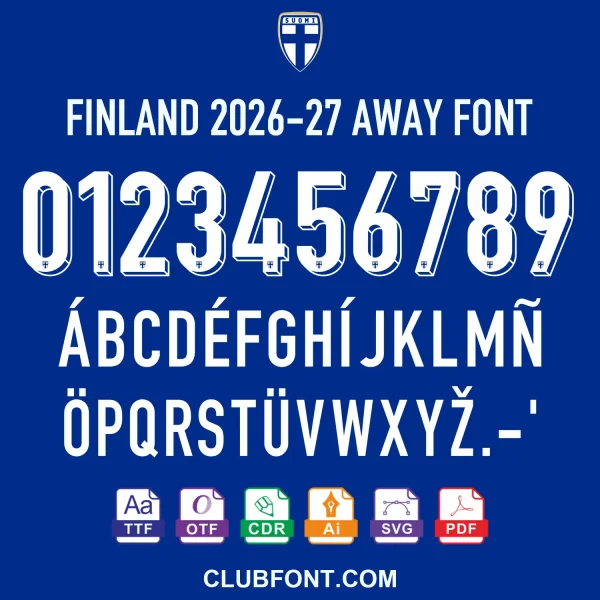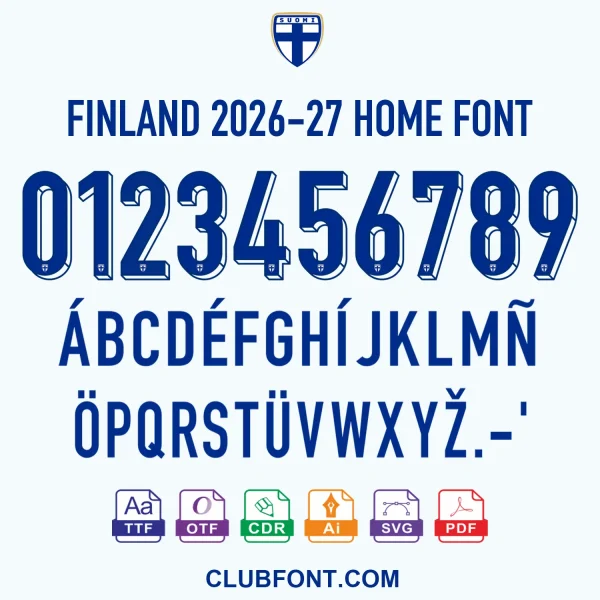
Finland 2026-27 Font – Official National Team Typography
Bring your custom jerseys to life with the definitive Finland 2026-27 font. Designed for the die-hard Huuhkajat supporter, this digital package captures the exact lettering seen on the pitch during the FIFA World Cup 2026 cycle. Engineered for both digital designers and garment decorators, this kit ensures your replicas match the professional specs.
Focus on the Kit Details
While versatile for various applications, this typeface is specifically engineered to replicate the Finland 2026-27 jersey aesthetics. The curves and weight of the numerals align perfectly with the white and blue palette of the iconic home shirt. Whether you are updating a player version jersey or creating fan apparel, these files provide the 1:1 accuracy demanded by collectors.